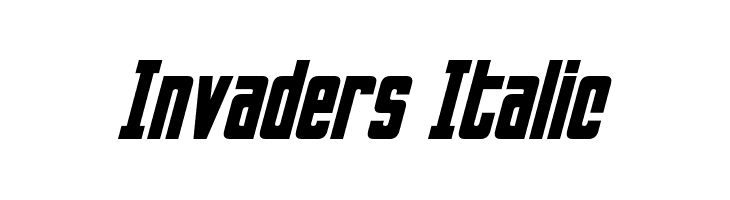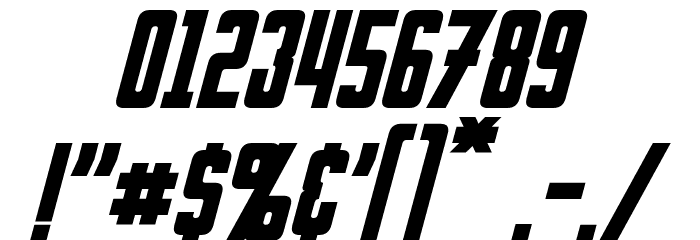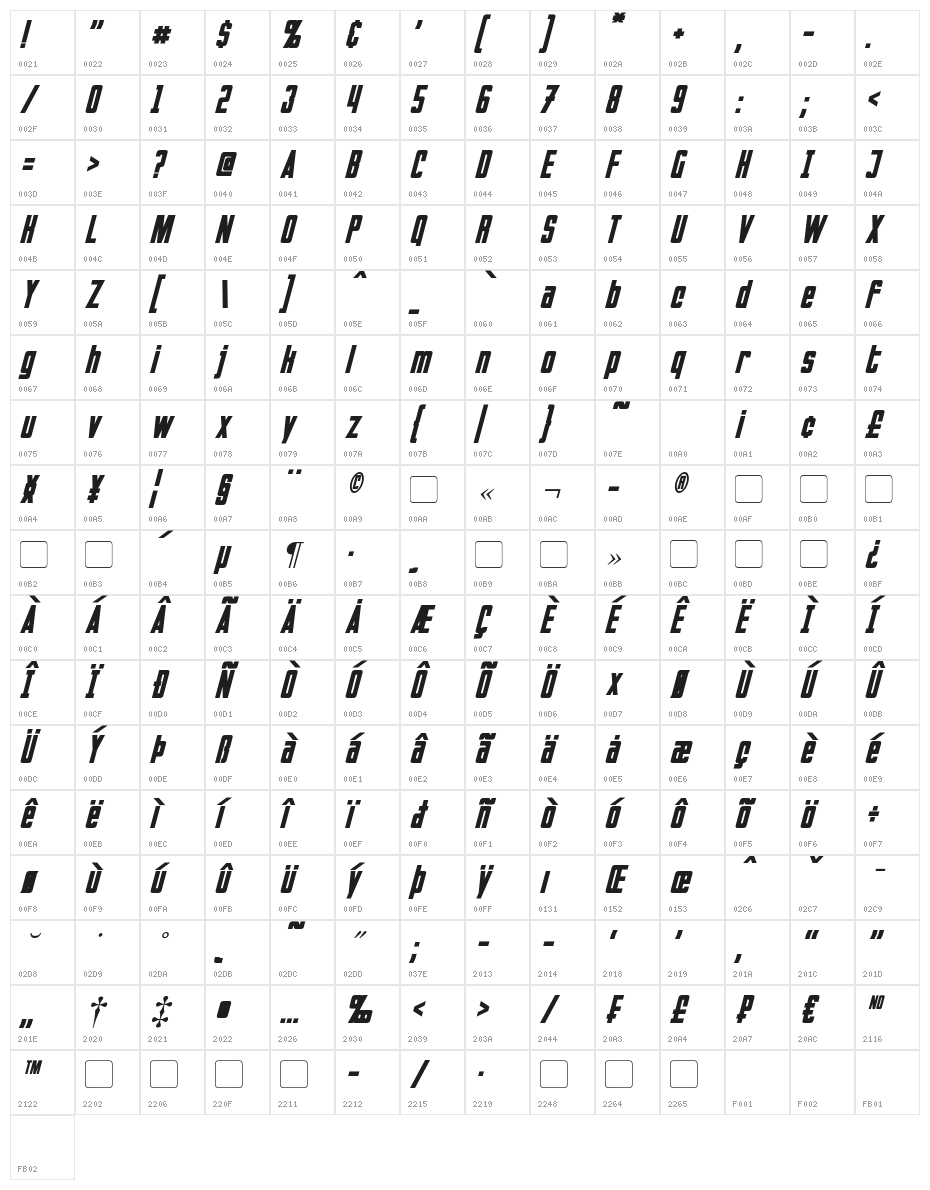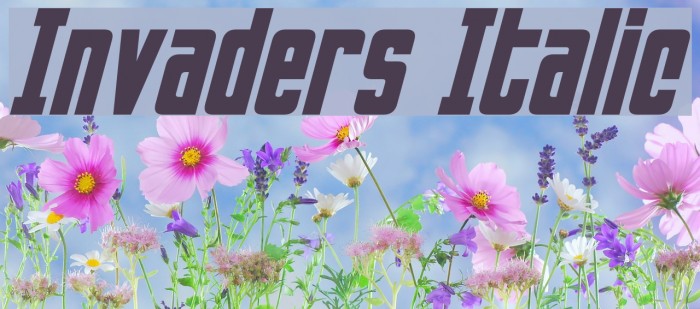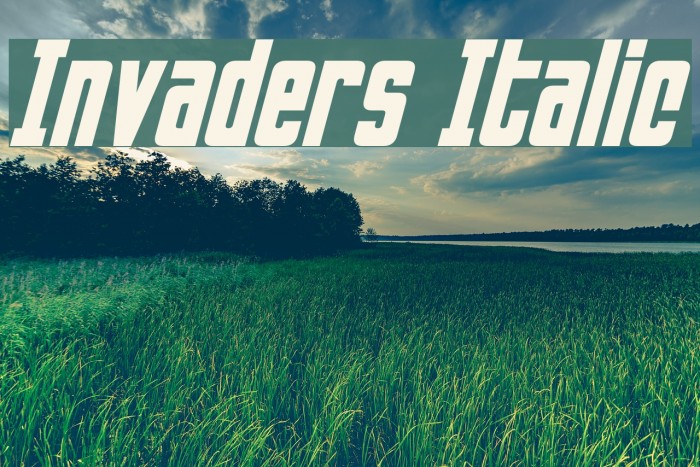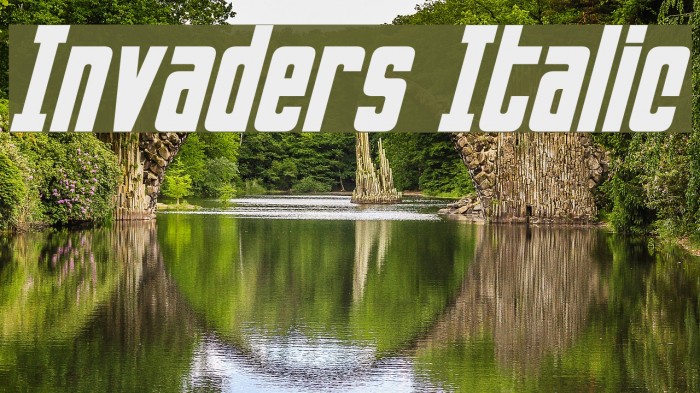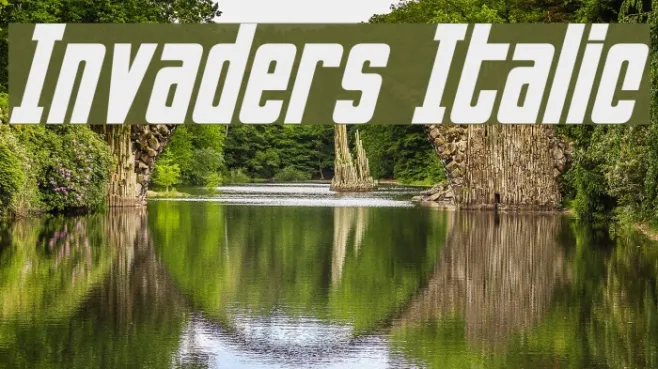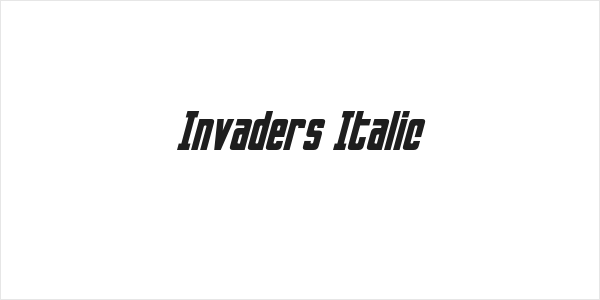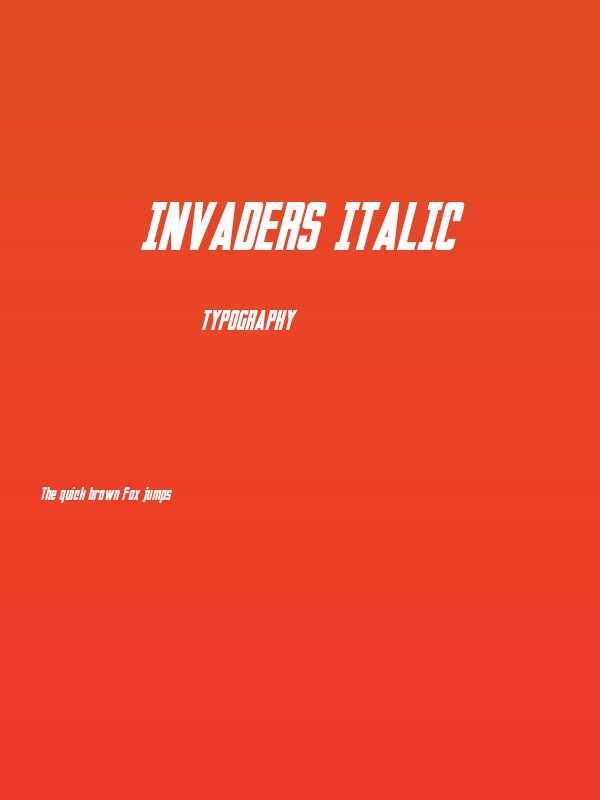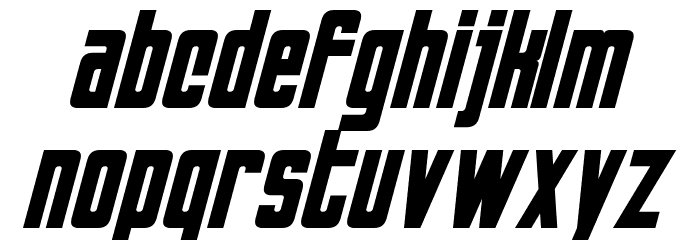
Invaders Italic Font
Invaders Italic Description
This font features a bold and dynamic style with a strong italic slant, giving it a sense of motion and urgency. The characters are tightly spaced, enhancing its compact and impactful appearance. The strokes are thick and consistent, providing a high contrast that makes the text stand out prominently. Its angular and geometric design elements contribute to a modern and futuristic aesthetic, making it suitable for projects that require a bold statement. The uppercase and lowercase letters maintain a uniform style, while the numerals and special characters are designed to match the overall theme, ensuring consistency across all text elements.
| Proposed Projects | Ideal for use in video game graphics, movie posters, sports branding, and any project needing a bold, modern look. |